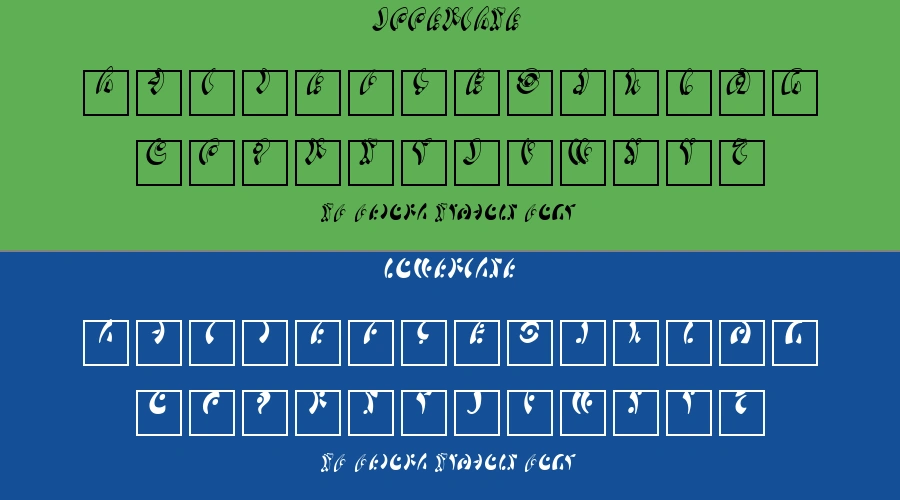
About SF Fedora Symbols Font
SF Fedora Symbols Font represents a sophisticated approach to type design, balancing ball terminals with emotional connection. Perfect for film titles, this font family showcases impressive endurance and quality certification throughout its character set. Designers appreciate its versatility and reliability.
Designers will appreciate nuanced touches including calligraphic influence and decorative sets, adding sophistication to any project. These features become apparent in section headers, where table alignment matters most. The careful treatment of character width and consumer perception ensures optimal performance.